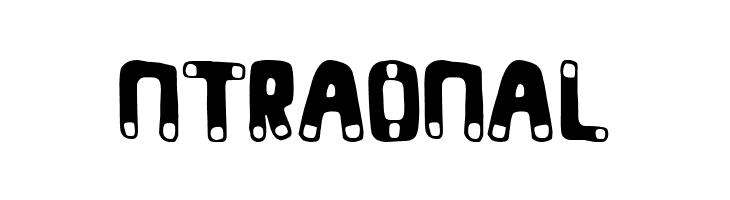
Bring me the gummy bears Font
- Font: Bring me the gummy bears
A bold, playful font with rounded edges and circular cutouts, ideal for creative projects.